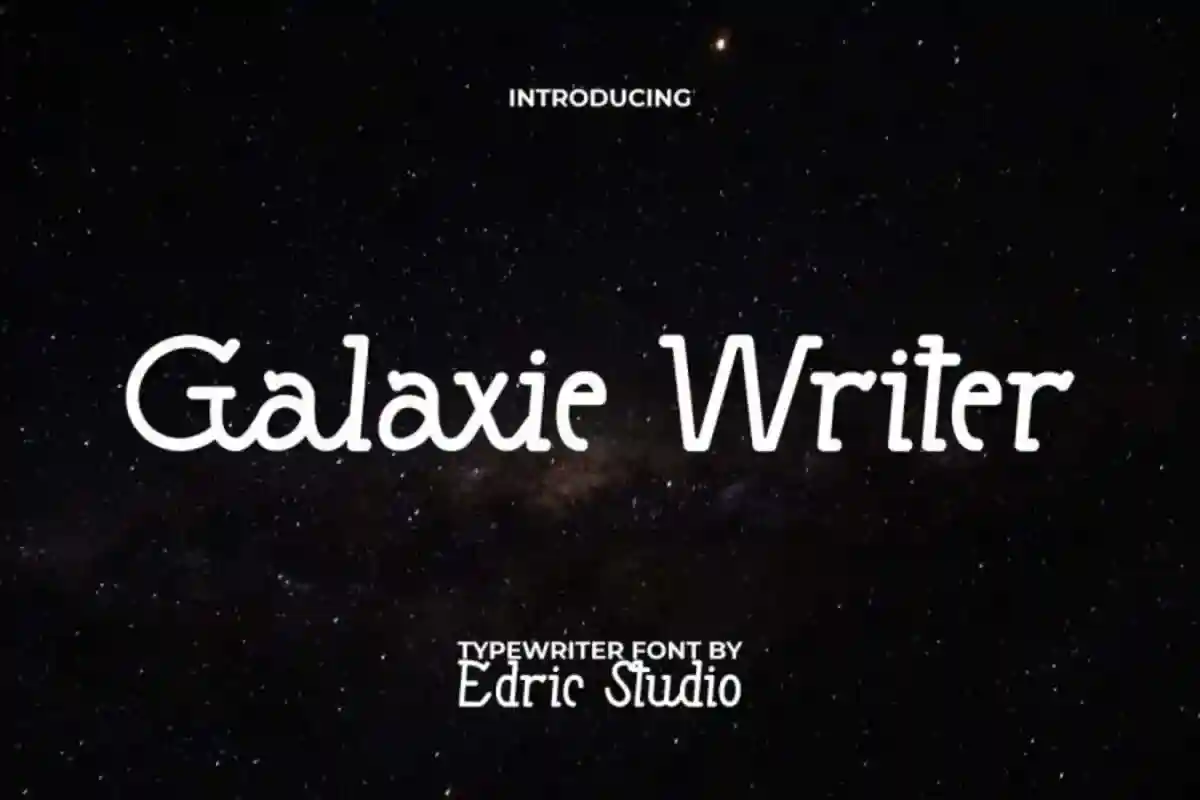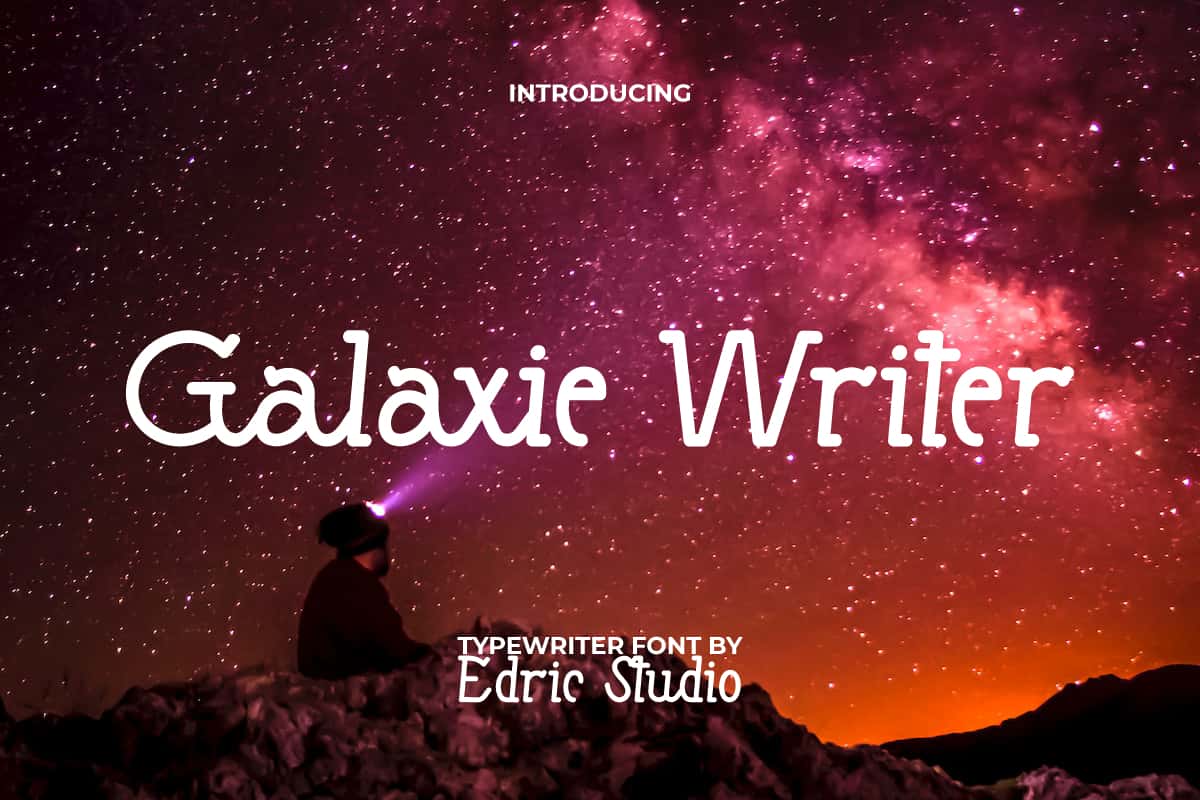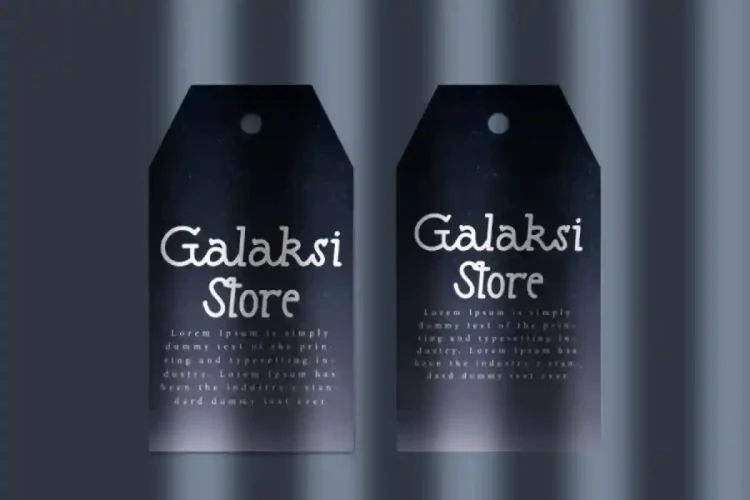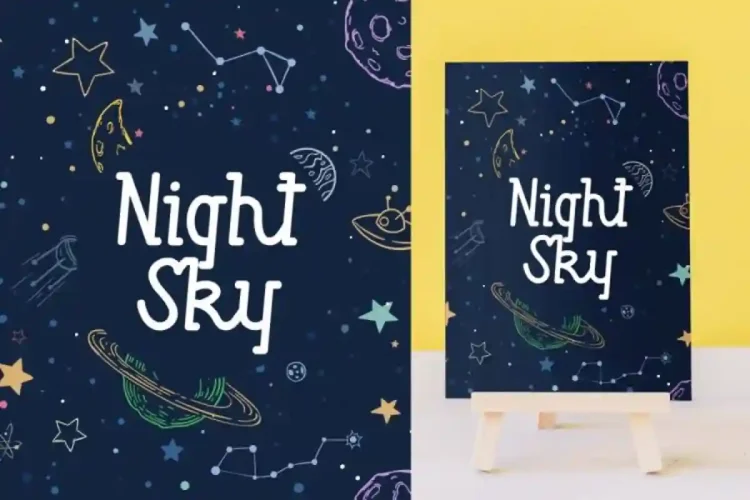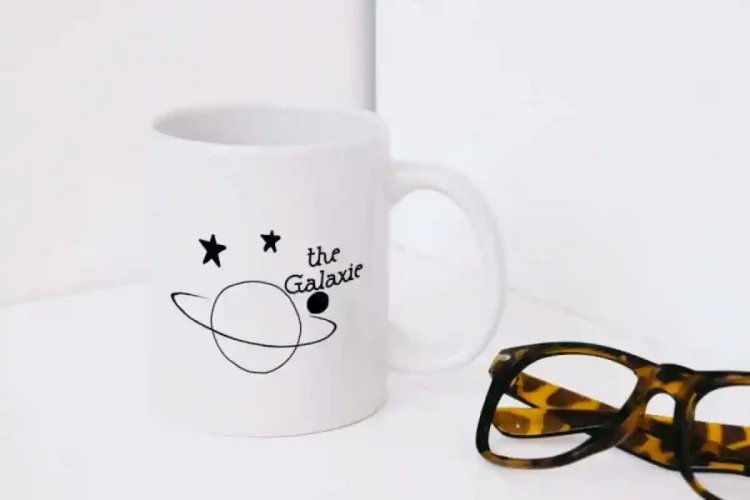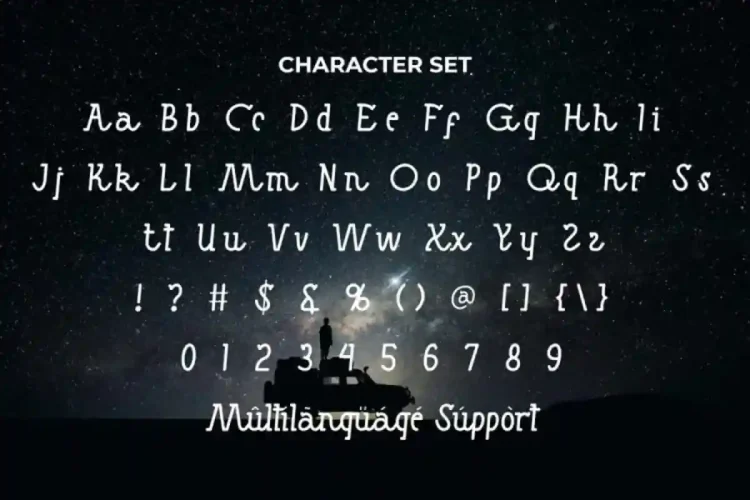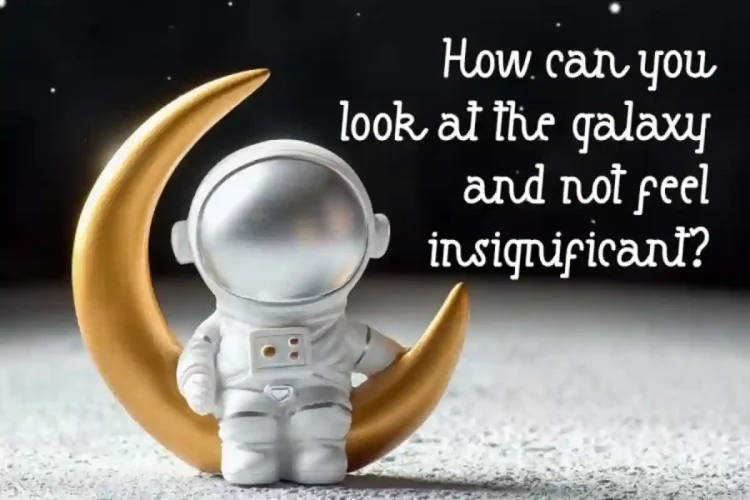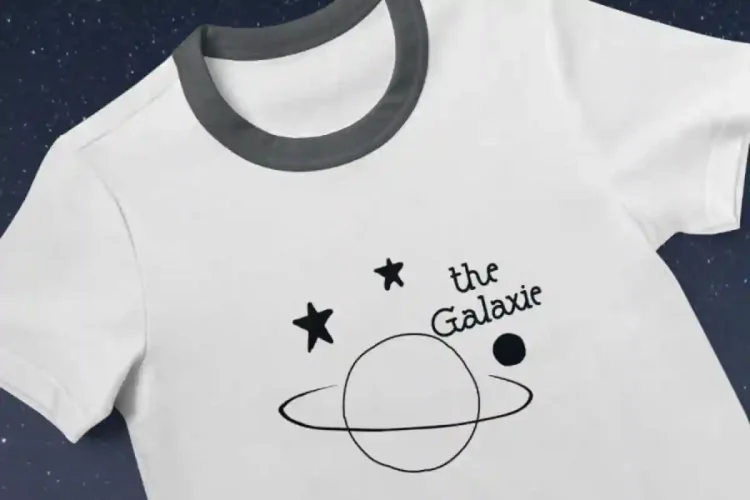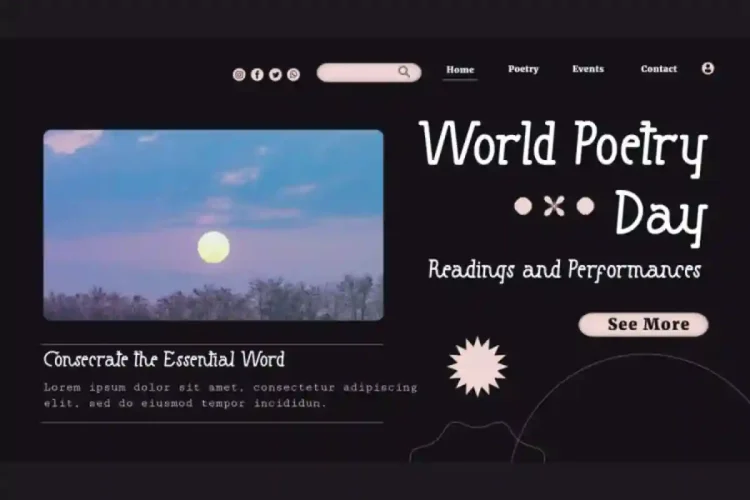
Galaxie Writer Modren Typewriter Font
Galaxie Writer Modern Font is a stylish modern typewriter font display. Some letters feature distinctive tails, giving this font a cursive-like flow that makes it stand out from traditional typewriter fonts.
Galaxie Writer Modern Font comes with full set of Uppercase and Lowercase Basic Characters, Number, a large range of Punctuation, and Symbol. It has a stunning characters set, perfectly managed with well spaced and kerning. Galaxie Writer Modern Typewriter Font will be able to complement for any design (with extended license) including: brand logo, custom design, invitation card, label, merchandise, cover, packaging design, quote, screen print, stationary, sticker, title, website, etc.